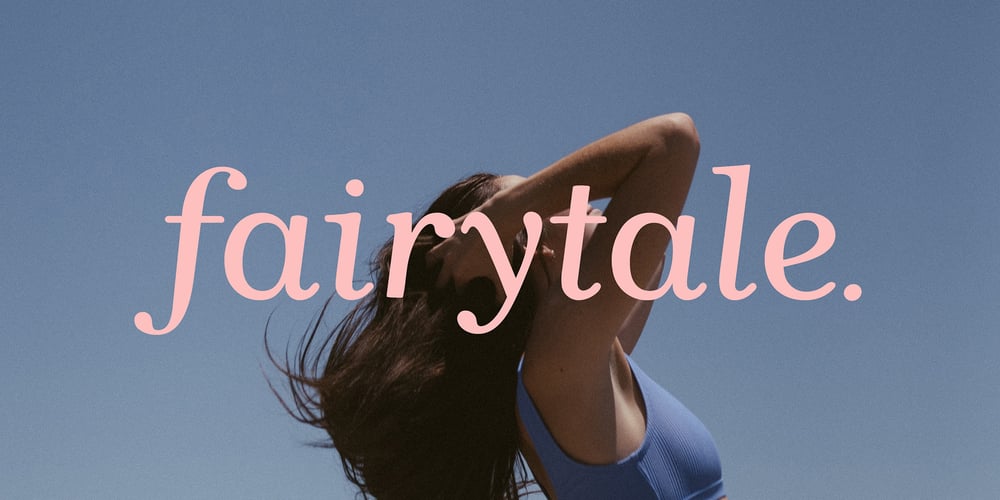
Fairytale Serif Font Family was designed by Elvina Gafarova and published by Elvina Studio. Fairytale Serif contains 2 styles and family package options. Fairytale is an inspiring and friendly font that features smooth rounded letters and soft curves, giving it a warm and inviting appearance. Upper/lowercase, numbers, punctuations; Language support: English, German, French, Spanish, Italian, Danish, Finnish, Portuguese, Swedish, Norwegian, Dutch, Indonesian, Luxembourgish, Icelandic, Cornish, Hungarian, Filipino, Romansh, Slovenian, Estonian, Polish, Turkish.Thank you!